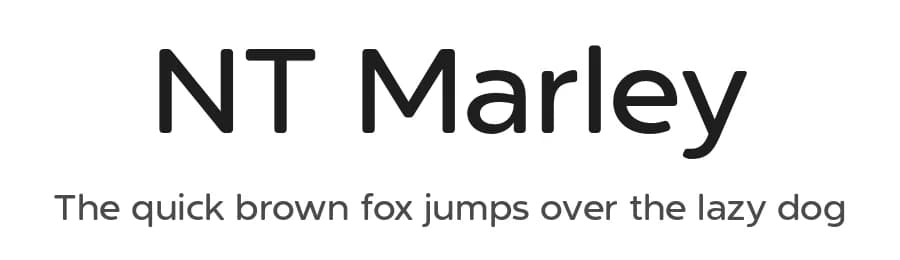
About NT Marley Font
NT Marley is a new sans serif typefamily.
| Designer | Artem Nevsky |
NT Marley Font is a versatile sans-serif font that works for both headings and body text. Pair it with a contrasting serif or slab serif font to add visual interest and a clear distinction between titles and body copy.
NT Marley Font
by Artem Nevsky